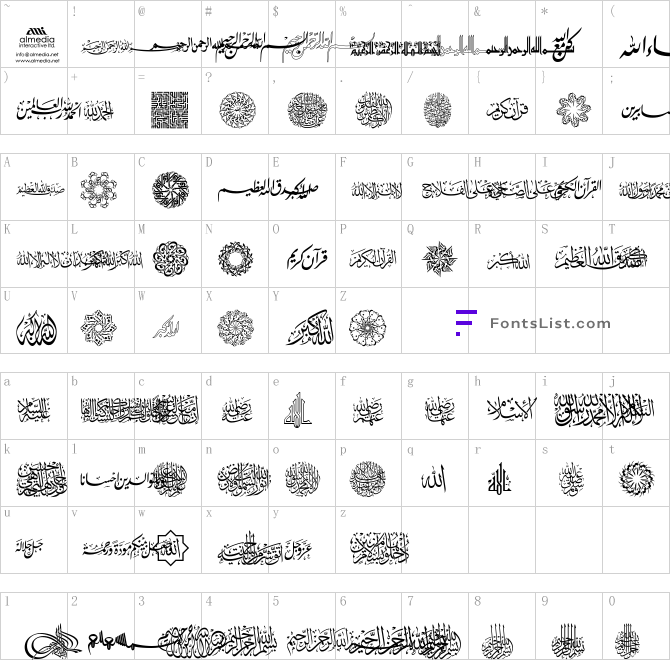
- Font Name:AGA Islamic Phrases
AGA-Islamic-Phrases.ttf is a very beautiful artistic font, AGA-Islamic-Phrases.ttf is widely used in the design and printing of various books and pictures,AGA-Islamic-Phrases.ttf has a strong visual impact,AGA-Islamic-Phrases.ttf is a commonly used font in newspapers, magazines and books, and is used in posters, e-commerce Poster design, store design, logo design, font design and other fields.AGA-Islamic-Phrases.